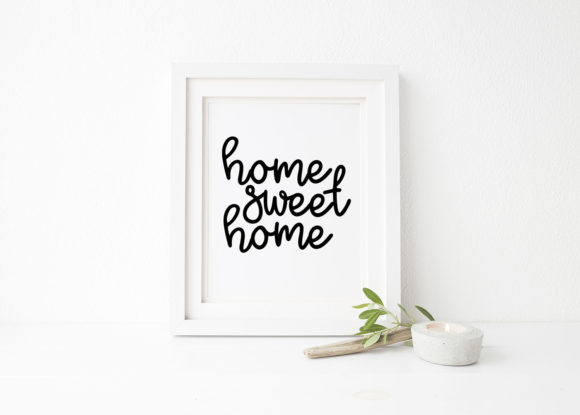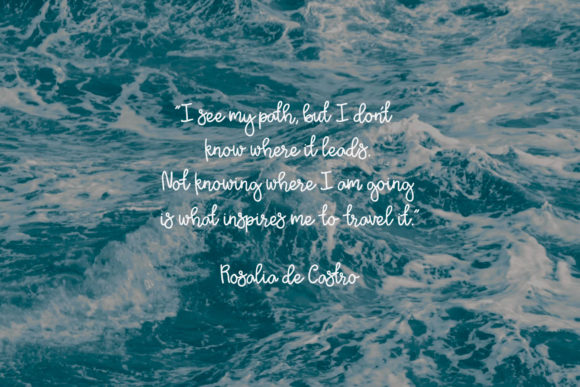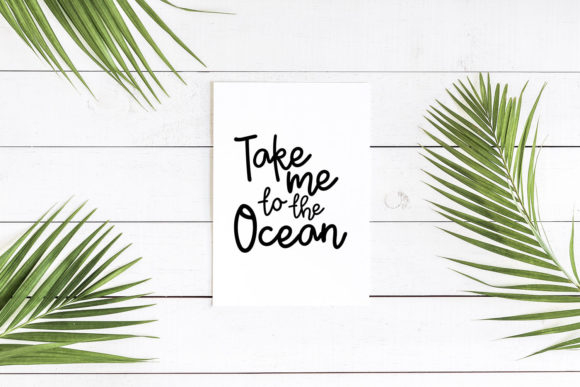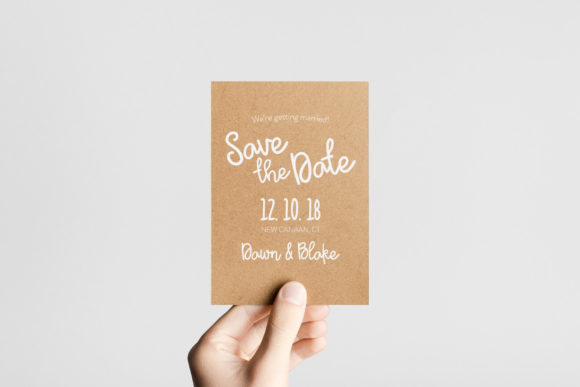
The Ultimate Guide to California Love Font: Elevate Your Designs with Style
I’ll never forget the time I was working on a fashion branding project, and my client asked for a font that was both stylish and readable. I scoured the internet, trying out font after font, but nothing seemed to fit the bill. That was until I stumbled upon the California Love font. ✨ This cursive handwritten font has been a game-changer for my designs, and I’m excited to share its awesomeness with you.
A Personal Review: What I Love About California Love Font
So, what makes California Love font so special? Here are a few things that I absolutely love:
- ✅ Smooth curves: The font’s smooth curves give it a luxurious feel that’s perfect for fashion branding or editorial designs.
- ✨ Readable: Despite being a cursive font, California Love is surprisingly readable, even at smaller font sizes.
- 💃 Bold and stylish: This font makes a statement without being too over-the-top. It’s the perfect balance of style and substance.
While California Love font is amazing, it’s not perfect. Here are a few quirks to keep in mind:
- ⚠️ Limited use in body text: While the font is readable, it’s still a cursive script. It might not be the best choice for long blocks of body text.
- 🤔 Some letters may require manual kerning: Depending on the context, some letters might require manual kerning to get the spacing just right.
A Practical Guide to Using California Love Font
- Experiment with OpenType features like glyphs and stylistic alternates to add some extra flair to your text.
The Backstory Behind California Love Font
California Love font was designed with the goal of creating a stylish, readable script font that would be perfect for fashion branding and editorial designs. The designer wanted to create a font that was both elegant and approachable, with smooth curves and a relaxed feel. The result is a font that’s both versatile and stylish.
| Font Name | California Love Font |
| Author | blushfontco |
| What is California Love font? | California Love font is a cursive handwritten font that’s perfect for fashion branding or editorial designs. |